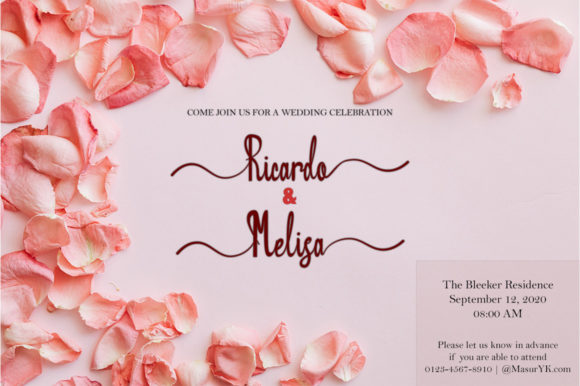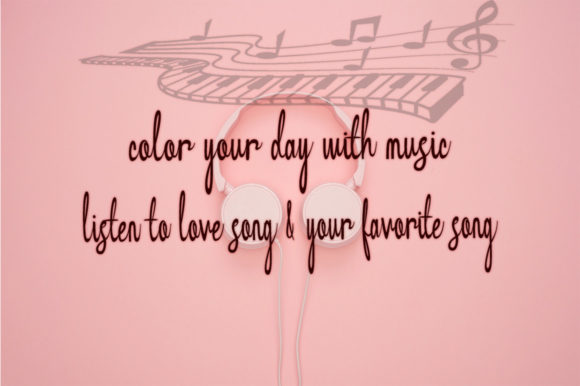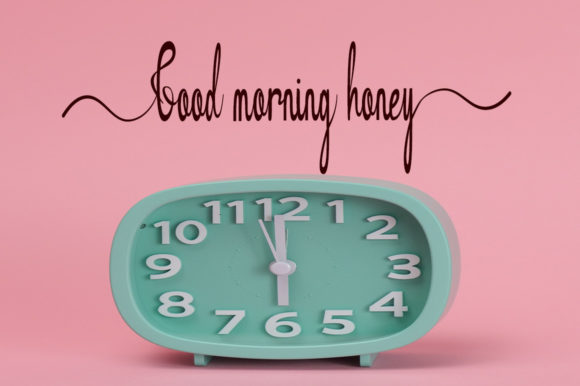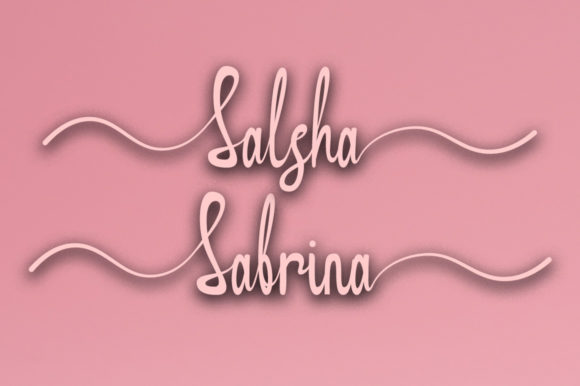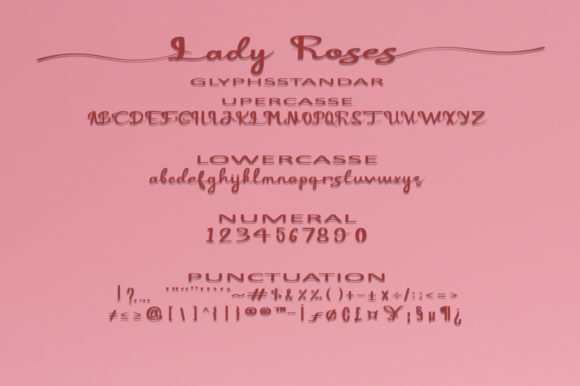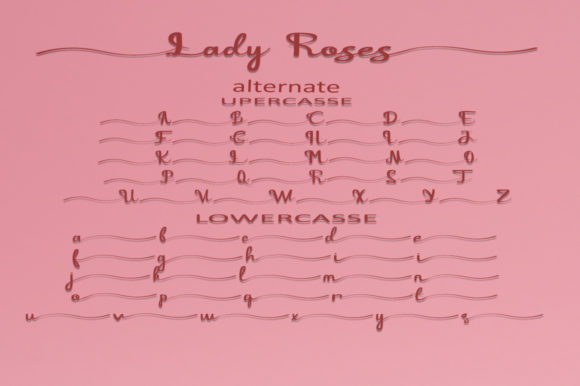
Introduction to Lady Roses Font
Lady Roses is an elegant script font with a contemporary atmosphere and impeccable form, inspired by timeless classic calligraphy.
This font is PUA encoded which means you can access all of the glyphs and swashes with ease .
Key Features of Lady Roses Font